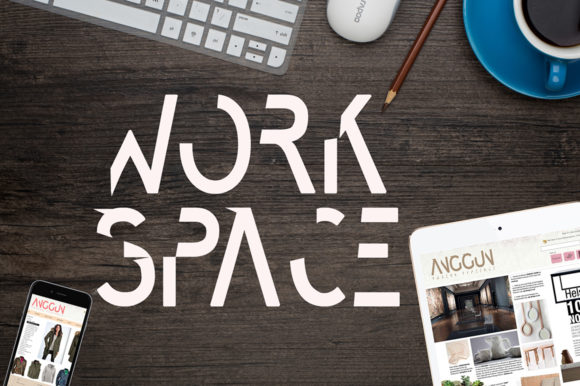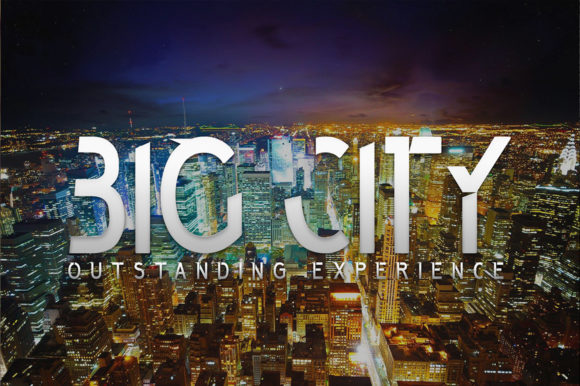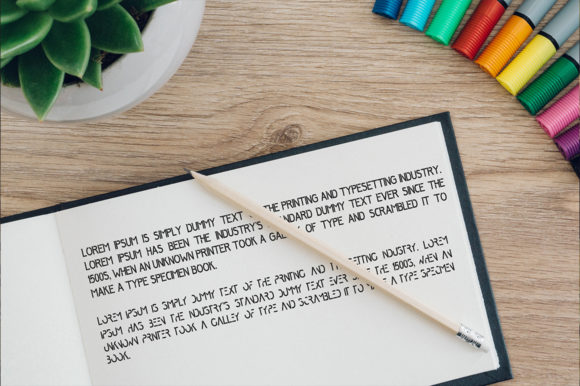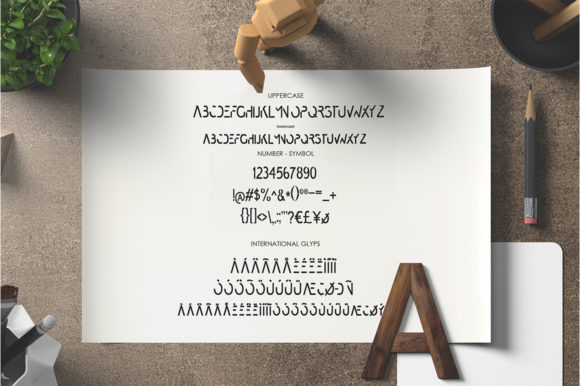
Unlocking the Future of Typography: The Anggun Font
Have you ever found yourself scrolling through a futuristic movie or sci-fi book and felt captivated by the sleek, high-tech typography? That’s exactly the kind of creative moment that inspired the design of the Anggun Font.
The Anggun Font, created by madeDeduk, is a futuristic styled font that boasts clean characters and a cutting-edge aesthetic. This font is not just a visual representation of the future, but a tool for designers to bring their innovative ideas to life. With its modern and edgy design, the Anggun Font is the perfect addition to any designer’s toolkit, offering endless possibilities for creative expression.
Whether you’re working on a futuristic project or simply looking to add a touch of modernity to your design, the Anggun Font is an invaluable resource for designers. Its clean and minimalist design makes it easy to read and use, while its futuristic vibe is sure to make your designs stand out.
Anggun Font Key Features
- Font Family: Anggun is a sans-serif font family designed by Krischna Aditya.
- Font Size and Resolution: Available in various font sizes, with a recommended resolution of 300 DPI for optimal legibility.
- Unique Characteristics: Anggun features a modern, clean design with a subtle flair, making it suitable for various design applications, including branding, advertising, and digital interfaces.
- Font Weight and Style: Available in multiple font weights, ranging from Light to Bold, and various styles, including Regular, Italic, and Bold Italic.
Anggun Font Review
Overall, I think the Anggun Font is a decent addition to any designer’s toolkit. Here are some things that I think work well: ✨
- Unique Character: Anggun has a distinct, exotic feel to it that can add a touch of elegance to certain designs.
- Wide Language Support: It supports a wide range of languages, making it a great choice for projects that require multilingual support.
- Customizable: The font has several variations and styles that can be used to create a consistent look across different design elements.
- Limited Readability: The font can be difficult to read at smaller sizes or in certain contexts, which may limit its use in certain design applications.
- Overly Decorative: While the font’s unique character is one of its strengths, it can also be overwhelming if used too extensively.
Overall, I would recommend the Anggun Font for projects that require a touch of sophistication and elegance. However, it’s essential to use it judiciously and balance its unique character with other design elements to avoid overwhelming the viewer.
Tips for Getting the Most Out of Anggun Font
Anggun Font is perfect for creating elegant and sophisticated designs. To get the most out of it, try:
- Using it for headings and titles.
- Pairing it with other elegant fonts for a unique look.
- Experimenting with different font sizes and colors to create contrast.
Anggun Font is ideal for:
- Business cards and letterheads.
- Magazine and book covers.